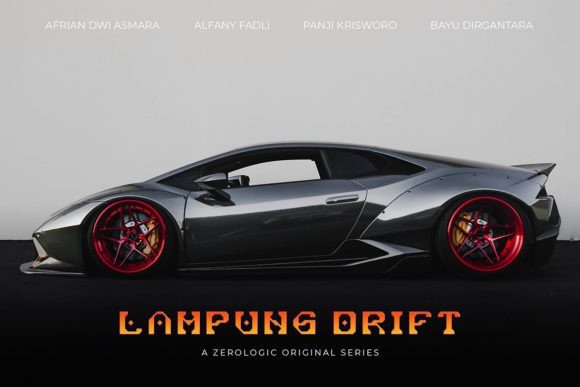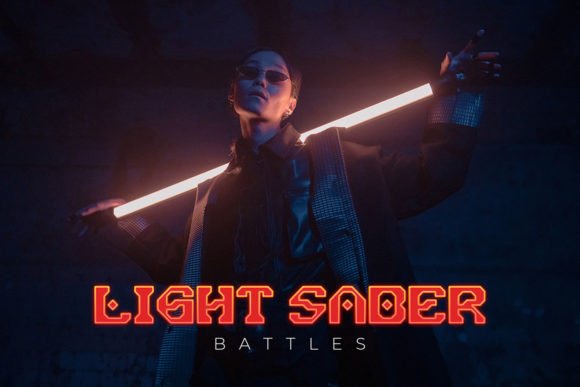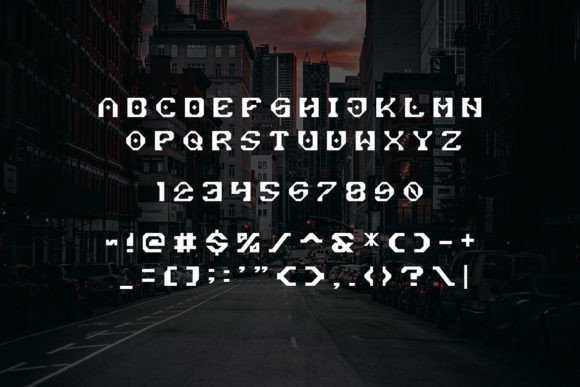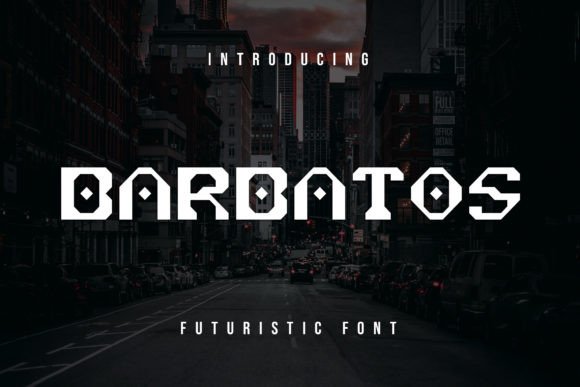
Introducing Barbatos Font: A Futuristic Typeface with an Original Twist
In the world of design, typography plays a crucial role in conveying messages, expressing creativity, and setting the tone for a brand or project. For designers and crafters looking to add a touch of futurism to their work, Barbatos Font is an exciting new addition to the typography landscape. This cool font is designed with an original touch, making it perfect for a wide range of applications, from titles and posters to packaging and websites.
What is Barbatos Font?
Barbatos Font is a futuristic typeface that boasts a unique and captivating design. Its original touch sets it apart from other fonts in the same category, offering a fresh perspective for designers seeking to create something new and innovative. The font’s sleek lines, geometric shapes, and carefully crafted letterforms come together to create a visually stunning effect that’s sure to grab attention.
Key Features of Barbatos Font
• Unique and Original Design: Barbatos Font’s design is unlike anything you’ve seen before. Its original touch makes it an excellent choice for designers looking to stand out from the crowd.
• Versatile: This font is perfect for a wide range of applications, including titles, typography, posters, magazines, brochures, packaging, websites, and more.
• Futuristic Aesthetic: The font’s futuristic design makes it ideal for projects that require a modern and cutting-edge look.
• Easily Customizable: Barbatos Font can be easily customized to fit your project’s specific needs, allowing you to experiment with different styles and effects.
Use Cases for Barbatos Font
Barbatos Font’s versatility makes it suitable for a wide range of design projects. Here are some examples of how you can use this amazing font:
• Posters and Flyers: Create eye-catching posters and flyers that grab attention with Barbatos Font’s bold and futuristic design.
• Branding and Logo Design: Use Barbatos Font to create a unique and memorable logo for your brand, setting you apart from the competition.
• Web Design: Add a touch of futurism to your website with Barbatos Font, making it perfect for tech startups, innovation hubs, and more.
• Magazines and Brochures: Use Barbatos Font to create stunning typography in your publications, making them more engaging and visually appealing.
• Packaging Design: Make your product stand out on store shelves with Barbatos Font’s bold and attention-grabbing design.
Why Choose Barbatos Font?
With so many fonts available, why choose Barbatos Font? Here are a few reasons why designers and crafters love this font:
• Originality: Barbatos Font’s unique design sets it apart from other fonts, ensuring your project stands out.
• Quality: The font is designed with high-quality craftsmanship, ensuring it looks great in any context.
• Flexibility: Barbatos Font can be used in a wide range of projects, making it a valuable addition to your design toolkit.
Barbatos Font is an exciting new addition to the world of typography, offering a unique and futuristic design that’s perfect for designers and crafters looking to add a touch of innovation to their work. With its original touch, versatility, and high-quality craftsmanship, Barbatos Font is sure to become a go-to choice for a wide range of design projects. Whether you’re creating posters, logos, websites, or packaging, Barbatos Font is the perfect choice for making your designs cooler and more engaging.